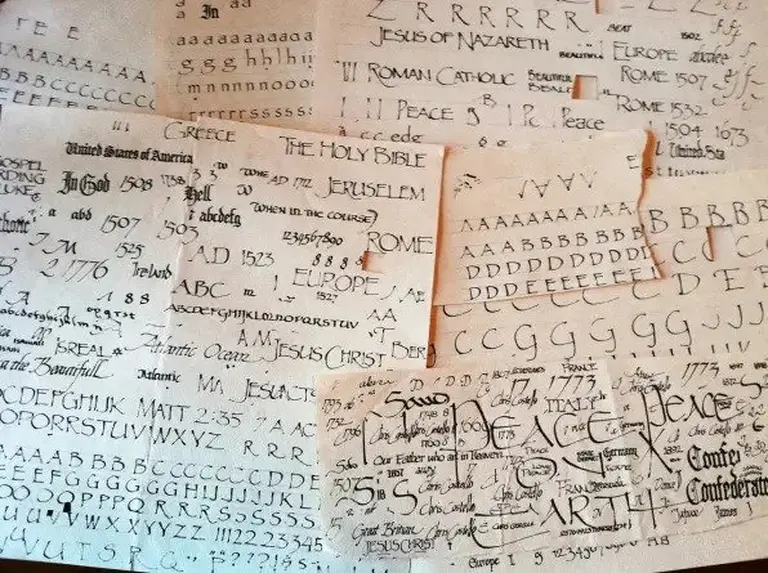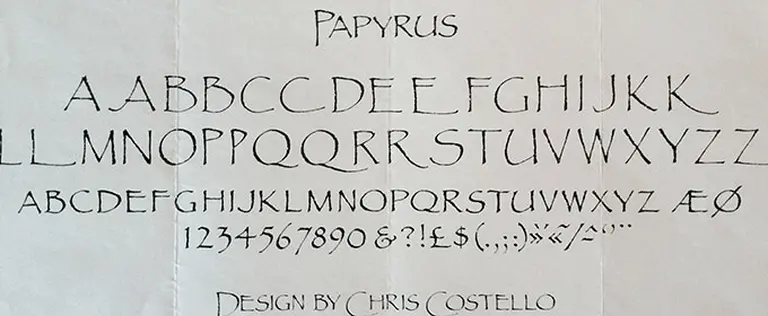
In defense of bad fonts
Not all fonts are created equal.
Fonts and typefaces are a core pillar of graphic design. Some are beloved and used almost everywhere you look, like Helvetica or Garamond. Some are ubiquitous due to their inclusion in programs like Google Docs or Microsoft Word, like Arial or Times New Roman.
But others have the dubious honor of being almost universally mocked for being so terrible.
If you’re involved in the design world, you’ve probably encountered some of these more notoriously bad fonts, like Papyrus, Impact, and of course, Comic Sans.
But why do these fonts exist? And if they’re so bad, why do people keep using them? Today, we’re going to take a look at some of the most hated fonts in the design world. We’ll talk about where they came from, why they exist, and whether or not they deserve their bad reputation.
Papyrus
Let’s talk about Papyrus first.
Papyrus is a roman-style typeface that merges a highly traditional title font look with a hand-crafted calligraphic style. It’s known for its use in book titles, posters, signs, and other places where the type will be large and highly visible.
It also looks . . . sort of ridiculous?
Whether through the fault of the font itself or from its overuse in poorly-designed small business logos, Papyrus has a reputation for being tacky, cliche, and cheap-looking.
Which makes it completely hilarious when it’s used in projects that should know better - like the title for James Cameron’s Avatar, which doesn’t precisely use the Papyrus font, but it’s close enough to notice the correlation.
Papyrus was created in 1983 by designer and illustrator Chris Costello. He was just 23 when he developed the font during his free time while working at an advertising agency.
His original inspiration for the typeface came from reading the Bible and imagining ancient texts being written in English using classical Latin characters. Over the course of several days, he sketched out various ideas and concepts for alphabets and glyphs that looked old and weathered.
Once he had developed a cohesive alphabet of letters, he began submitting the font to type foundries, all of which rejected it except a small British foundry called Letraset. After a few changes, he sold them the font for just £750, which would be worth around $2500 today.
The font remained relatively obscure until it was picked up by Microsoft as one of the base fonts for MS Publisher for MS Office 97. Ever since then, it’s been a Microsoft office staple. It was also picked up as a base font in 2003 by Mac OS, which cemented its place in the public design zeitgeist.
Now while the other fonts on this list have some legitimately redeeming qualities, I think Papyrus deserves most of the ridicule it gets. To be fair, much of its misuse has been the result of inexperienced designers picking the font because it looks visually interesting, without considering whether it is right for their design.
Papyrus was designed to be used sparingly, and only at a small font size. When it’s blown up to large proportions, the font looks strange - but it was never meant for this purpose.
However, this hasn’t prevented people from misusing it; which is how we got to the current situation - where most people react to it with dismay and ridicule, myself included.
Impact
The next font on our list is very well-known, but doesn’t have quite the same notoriety as Papyrus or Comic Sans. However, it is one of the most ubiquitous fonts on the internet due to its place as a core font for web design.
Source: Wikipedia
Impact has been around since 1965, when designer Geoffrey Lee developed it for the Stephenson Blake Foundry. It was originally designed as a metal typeface, designed to be used in the layout of posters and other advertisements where the title needed to make a big impact (hence the name).
The Impact font shares many design sensibilities with other elements of the 1960’s. Following the second World War, design in the United States made a hard shift towards the Swiss style of graphic design, favoring clean lines and sans-serif fonts like Helvetica. Impact clearly takes this design idea as a base, but then breaks the boundaries of it to create a typeface that is bombastic and intense.
Interestingly, Impact did not see widespread use until 1992, when Microsoft released it as a digital font in the base version of Windows. It rose sharply in popularity, and was selected as part of the list of core fonts for web design in 1996, turning it into one of the most recognizable fonts in common use today.
Remember - just because a font has a bad reputation doesn’t mean it’s useless.